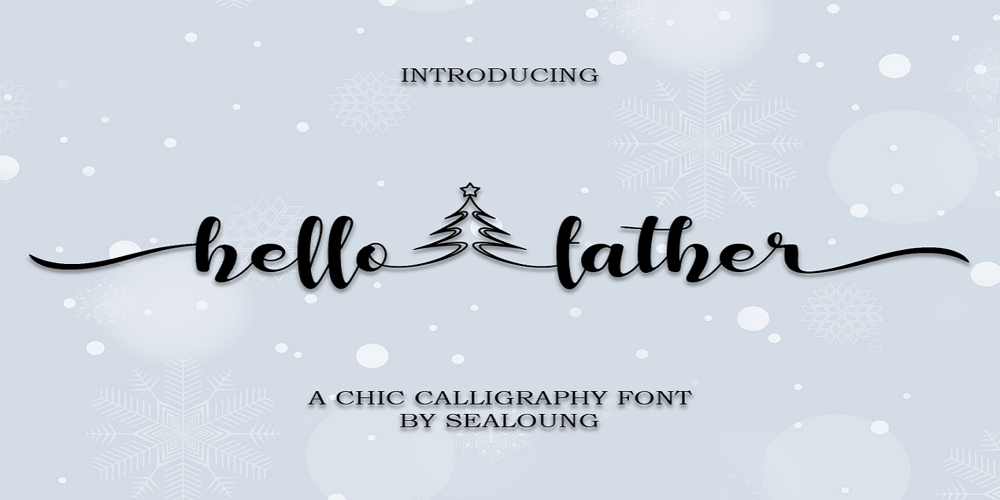
Hello Father Font Family was designed by Saiful Anwar and published by Sealoung. Hello Father contains 1 styles and family package options. Hello Father feels equally charming and elegant. This stunning handwritten font is a stylish homage to classic calligraphy. It features a varying baseline, smooth lines, gorgeous glyphs and stunning alternates. It will elevate a wide range of design projects to the highest level, be it branding, headings, wedding designs, invitations, signatures, logos, labels, and much more!